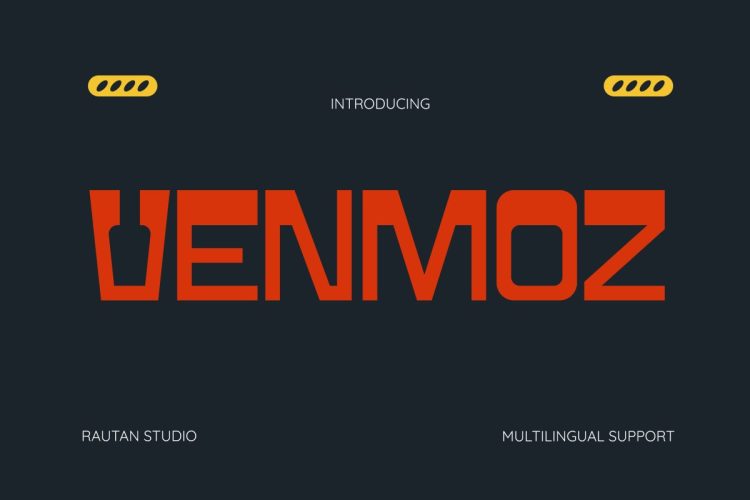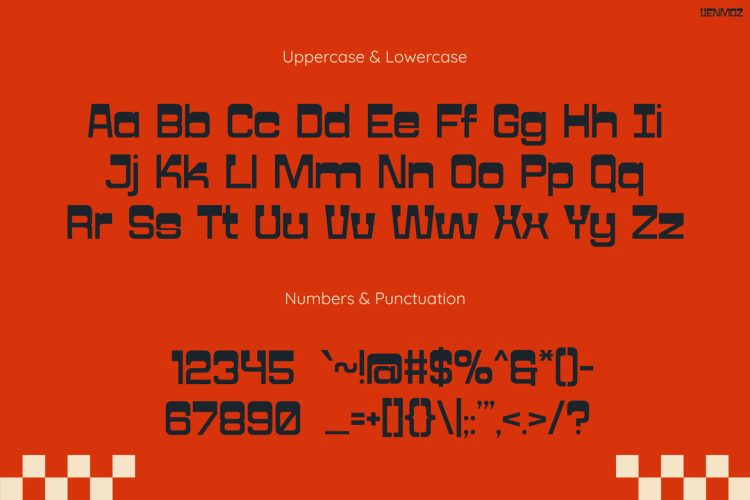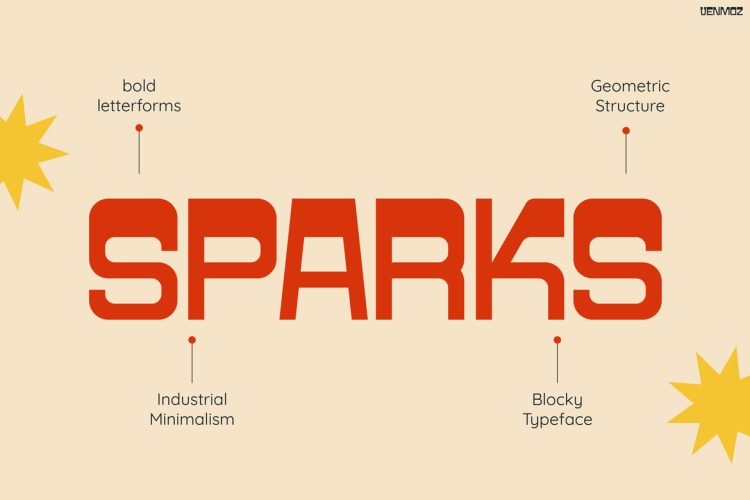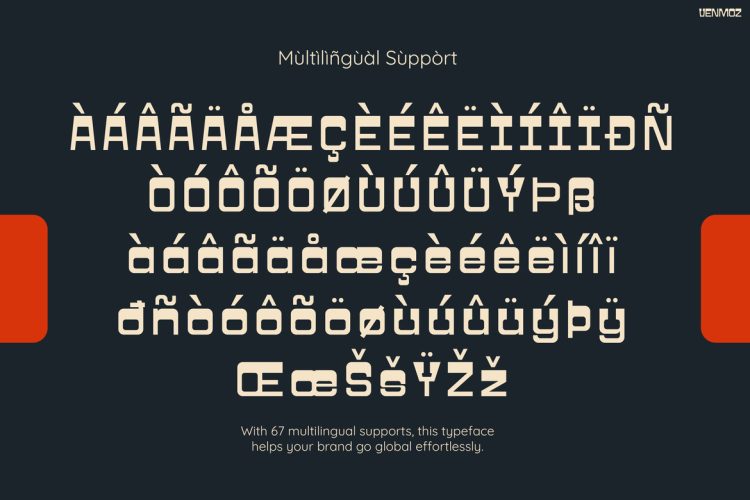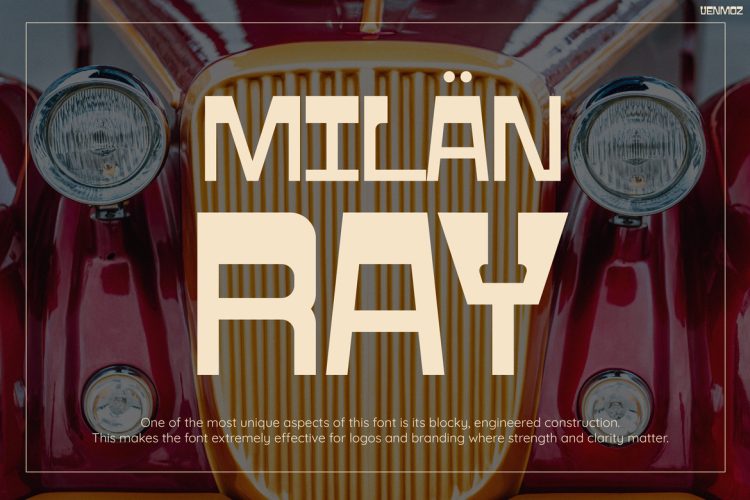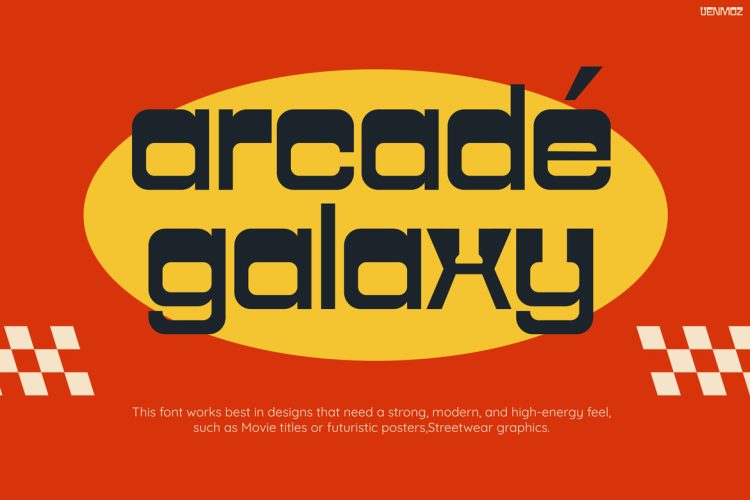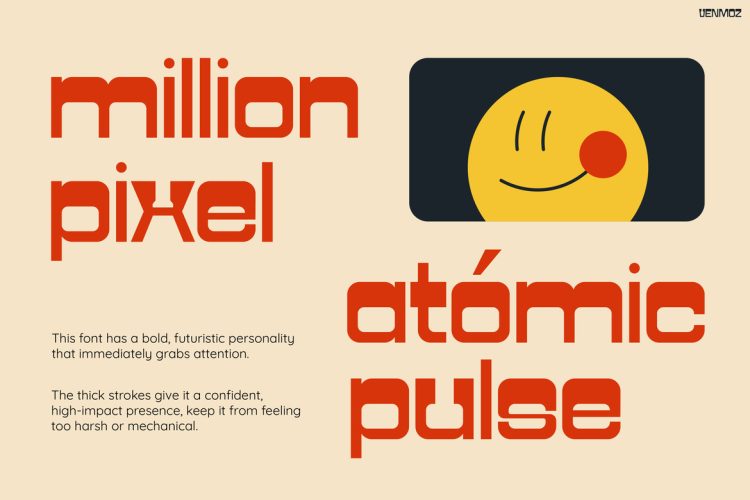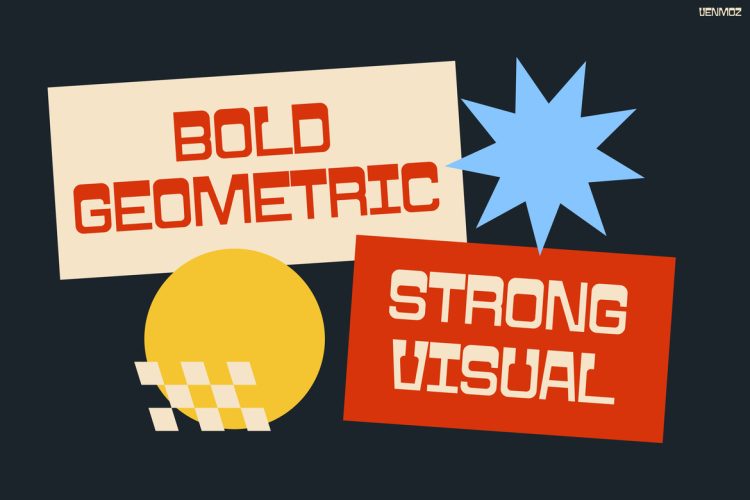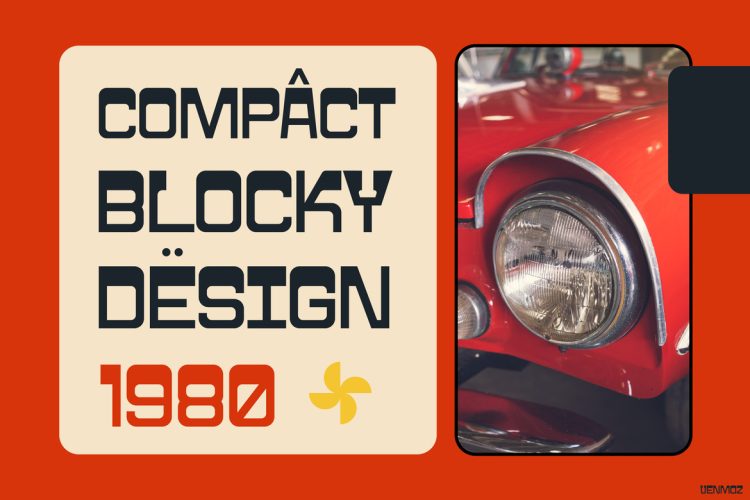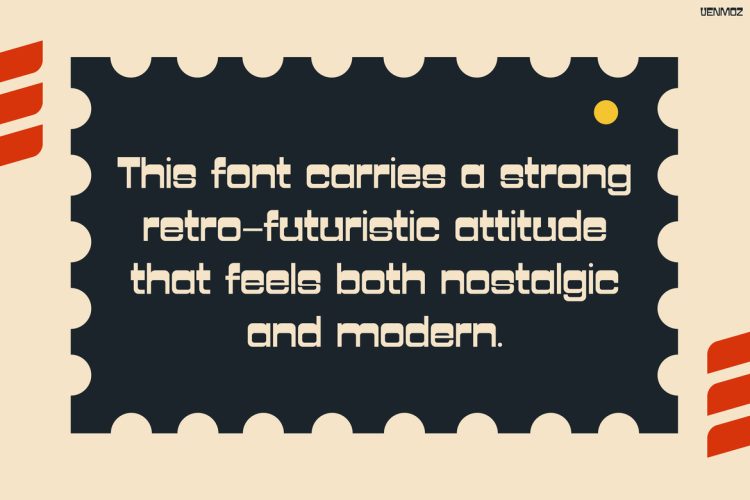
Retro Font Venmoz โ Bold Retro Energy
Retro Font Venmoz brings a bold retro-futuristic vibe that instantly captures attention. Inspired by classic arcade games and vintage tech graphics, this font delivers a powerful visual identity. At the same time, its geometric structure keeps the design clean and modern. The compact block shapes and sharp corners create a strong, energetic aesthetic. As a result, every headline feels dynamic and memorable. Moreover, the futuristic letterforms combine nostalgia with modern design trends. Because of this balance, the font works perfectly for bold creative projects. In addition, Retro Font Venmoz transforms simple text into striking visual statements. Therefore, designers can easily build eye-catching titles and branding. With support for 67 languages, it also allows creators around the world to design confidently and consistently.
Retro Font Venmoz is a bold geometric display font designed for strong visual impact. First, the letterforms feature compact shapes and futuristic proportions. Because of this, the typography instantly feels energetic and distinctive. Furthermore, the structured block design creates a powerful retro arcade personality. As a result, the font performs beautifully in large titles and graphic layouts.
Moreover, Venmoz adds nostalgic charm while still looking modern. For example, it works perfectly for retro gaming themes, tech branding, and poster designs. In addition, it fits digital graphics such as YouTube thumbnails and social media visuals. The balanced geometry also keeps text readable even at large sizes. Therefore, designers can create bold compositions without losing clarity. Overall, this font delivers a perfect mix of retro attitude and modern design strength.
Retro Font Venmoz is ideal for graphic designers, game developers, branding studios, and digital creators. In particular, it works well for projects that need bold visual energy. For example, it is great for arcade-style graphics, gaming logos, retro posters, and merchandise design. Likewise, it fits tech branding, YouTube covers, and social media campaigns. Additionally, creative entrepreneurs and marketers can use it to build strong nostalgic branding. Because of its bold personality, the font helps designs stand out instantly.